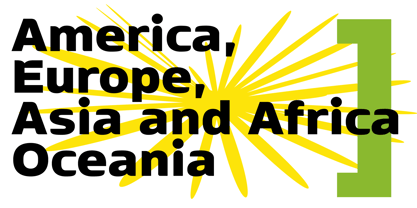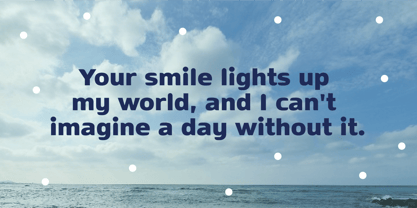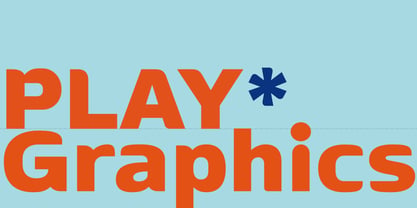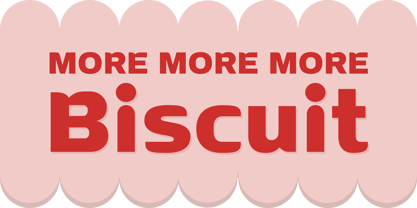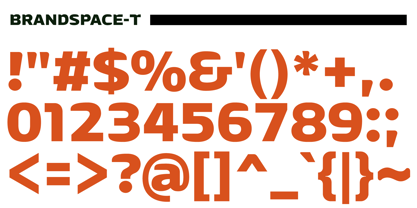
More Biscuit
by BrandspaceT
The More Biscuit Font Family was designed by Jihee Yoon and published by BrandspaceT. More Biscuit contains 1 styles. More about this family
This typeface is a concept that expresses the relaxation of opening a book and eating a biscuit. The geometric curves that coexist with straight lines make it a great choice to convey an elegant yet modern sense. It gives a stable, soft, and sophisticated impression, and the unique shape's position catches the eye. It can create a unique feeling or be reminiscent of retro with an elegant atmosphere. This is BrandspaceT's MoreBiscuit, which is suitable for typography posters, logos, and graphic elements.
Designers: Jihee Yoon
Foundry: BrandspaceT